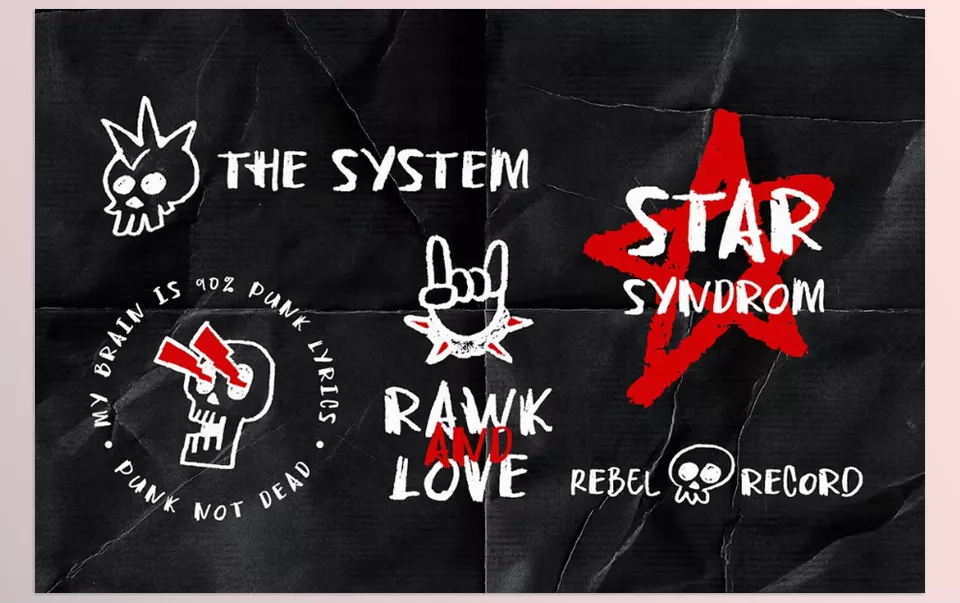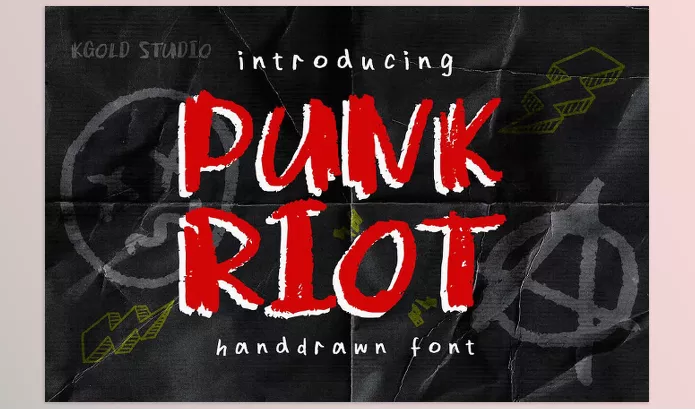
Creative Market – Punk Riot, by K Gold Studio, is a sophisticated collection of bold fonts. Their hand-drawn collection encapsulates the energy of punk rock. The three aesthetic styles, Raw, Distressed, and Clean, are each unique in their own way and give the rebellious lifestyles of punk rockers apropos street cred for anything from album covers to streetwear.
• Punk Rock DIY: The raw, gritty punk rock aesthetic is perfectly encapsulated in the font set.
• Three Unique Styles: The font comes in raw, distressed, and clean variants for versatility in design.
• Make a Statement: These bold and unapologetic fonts are perfect for making a grungy punk rock statement.
• Textured Depth: The grunge styles serve the purpose of adding depth and Character to any project.
• Sharp Variations: The moving parts in any project do not result in pixelation. Each part remains crisp and detailed as the size of the project increases.
Image 1: This font captures the DIY, chaotic style of the punk era, bringing bold character and attitude to your designs.
Creative Market - Punk Riot - This font captures the DIY, chaotic style of the punk era, bringing bold character and attitude to your designs.
Image 2: Perfect for album covers, streetwear, posters, and anything that screams bold and unapologetic creativity.
Creative Market - Punk Riot - Perfect for album covers, streetwear, posters, and anything that screams bold and unapologetic creativity.